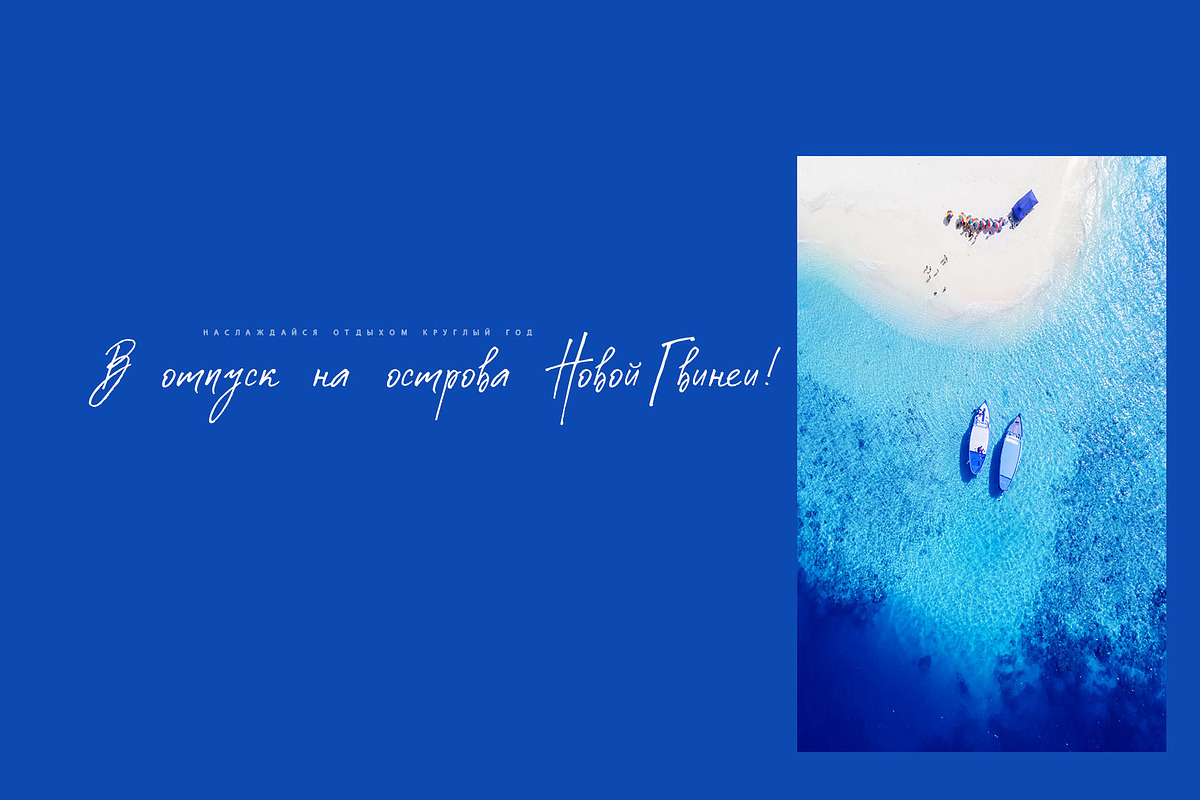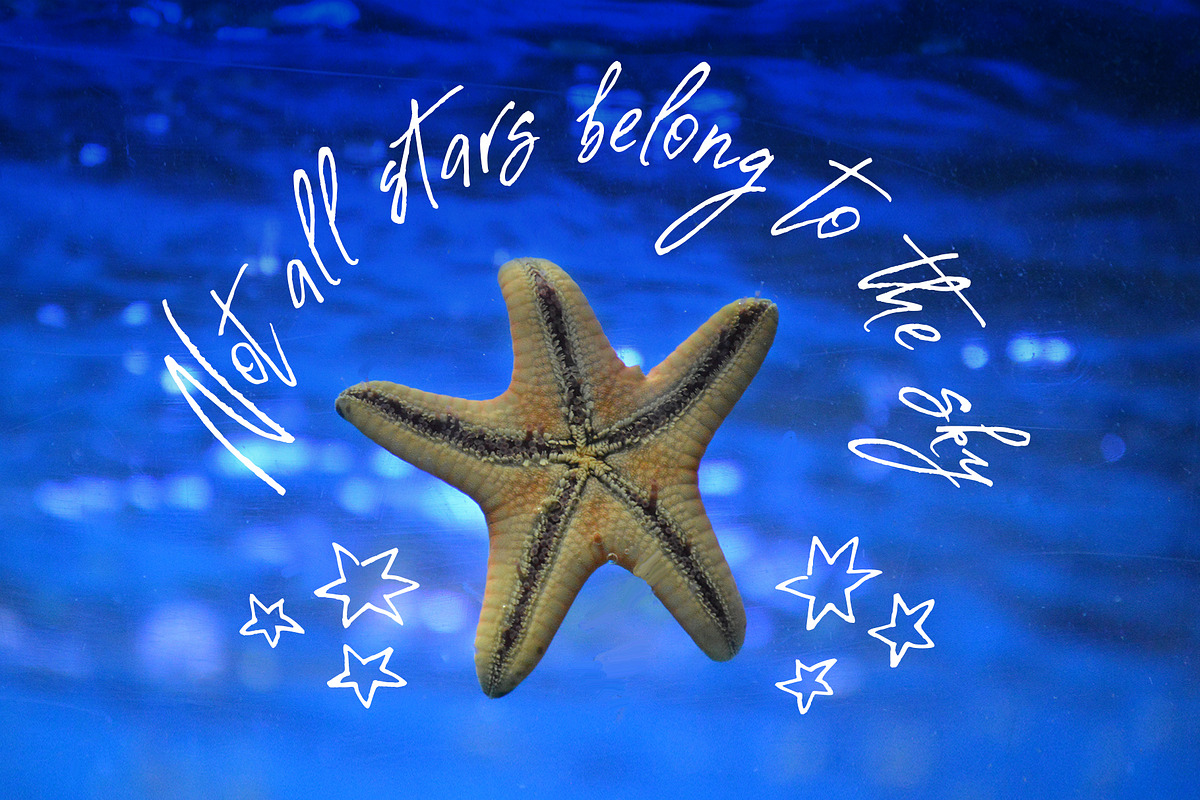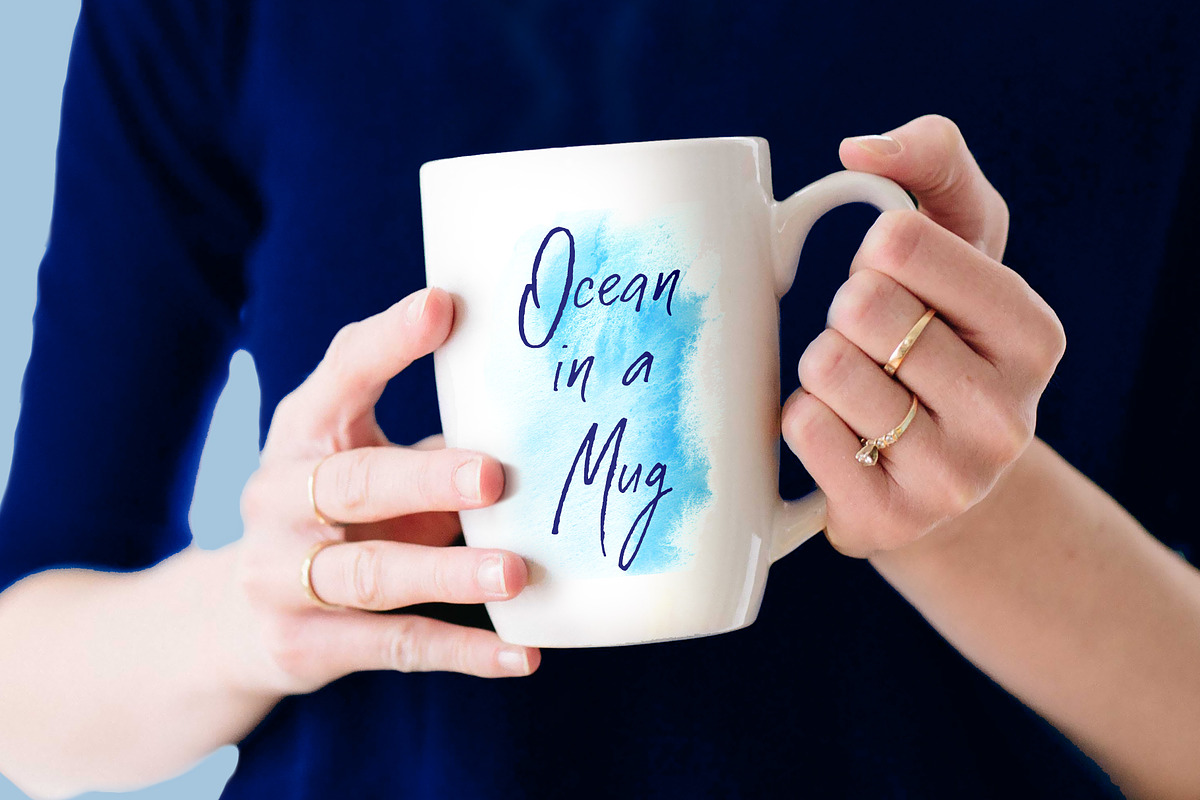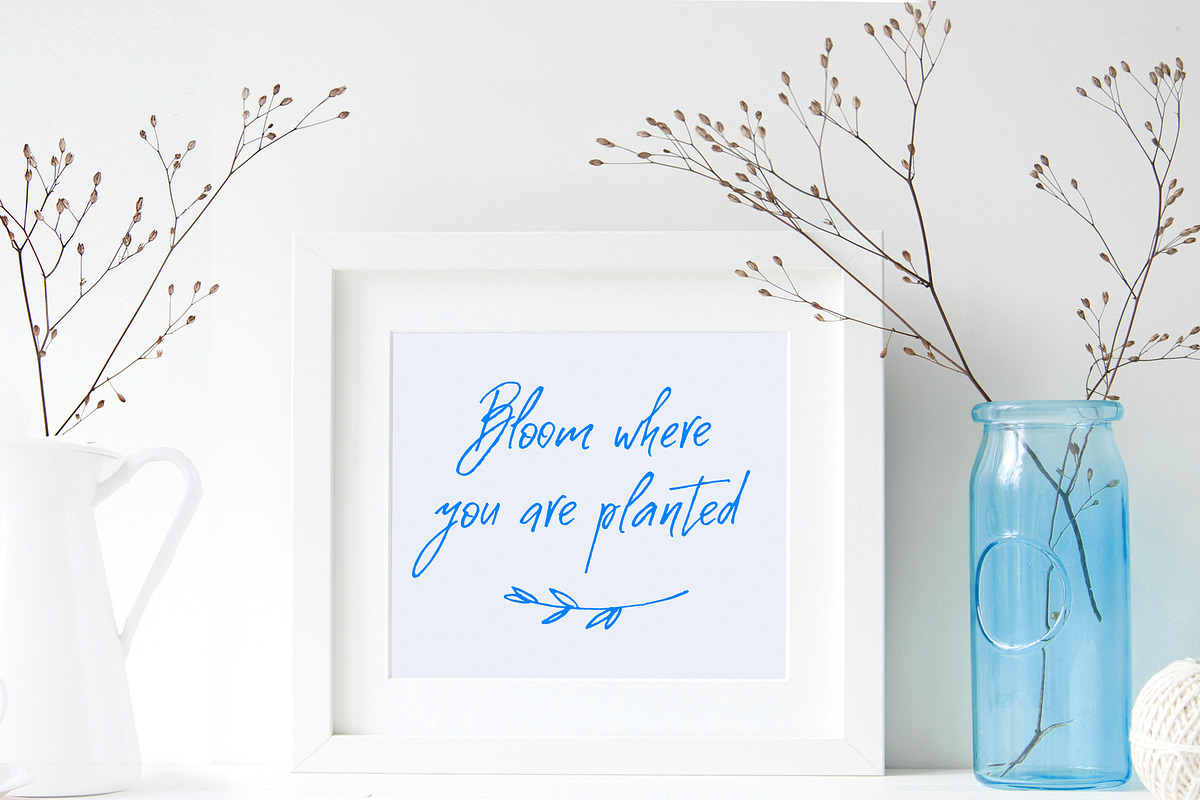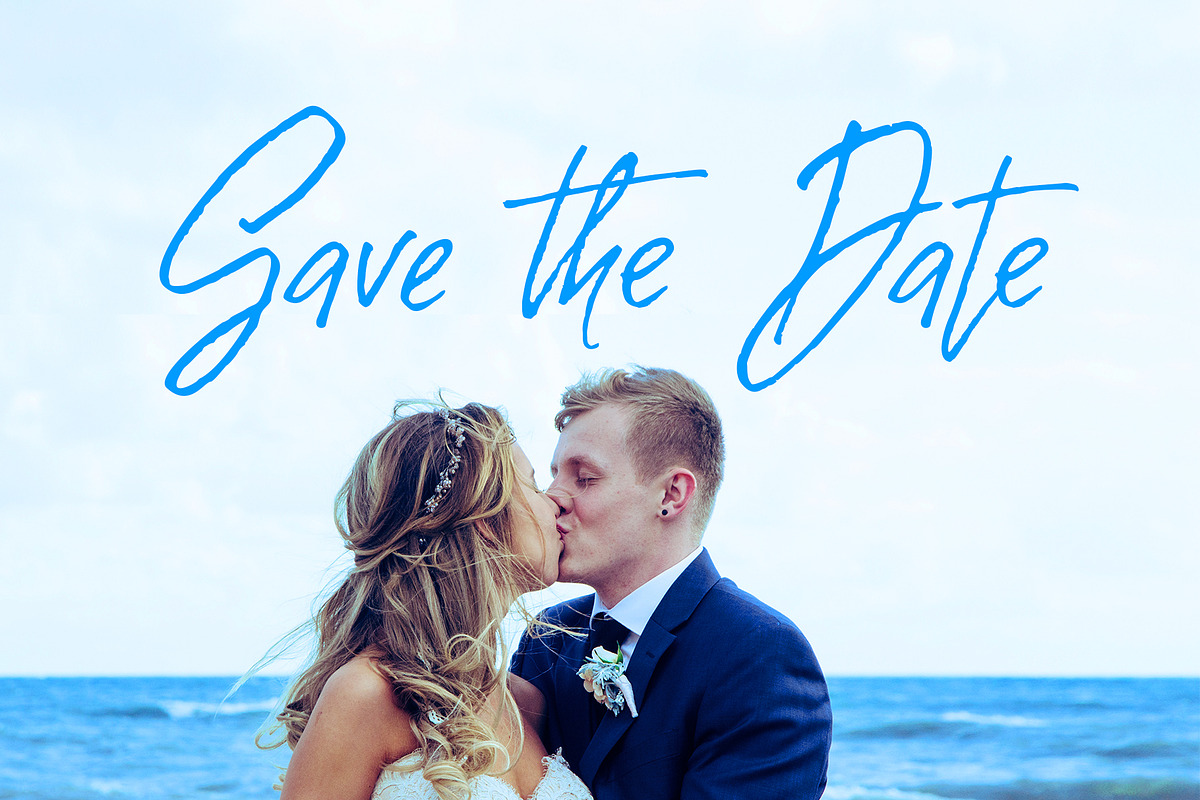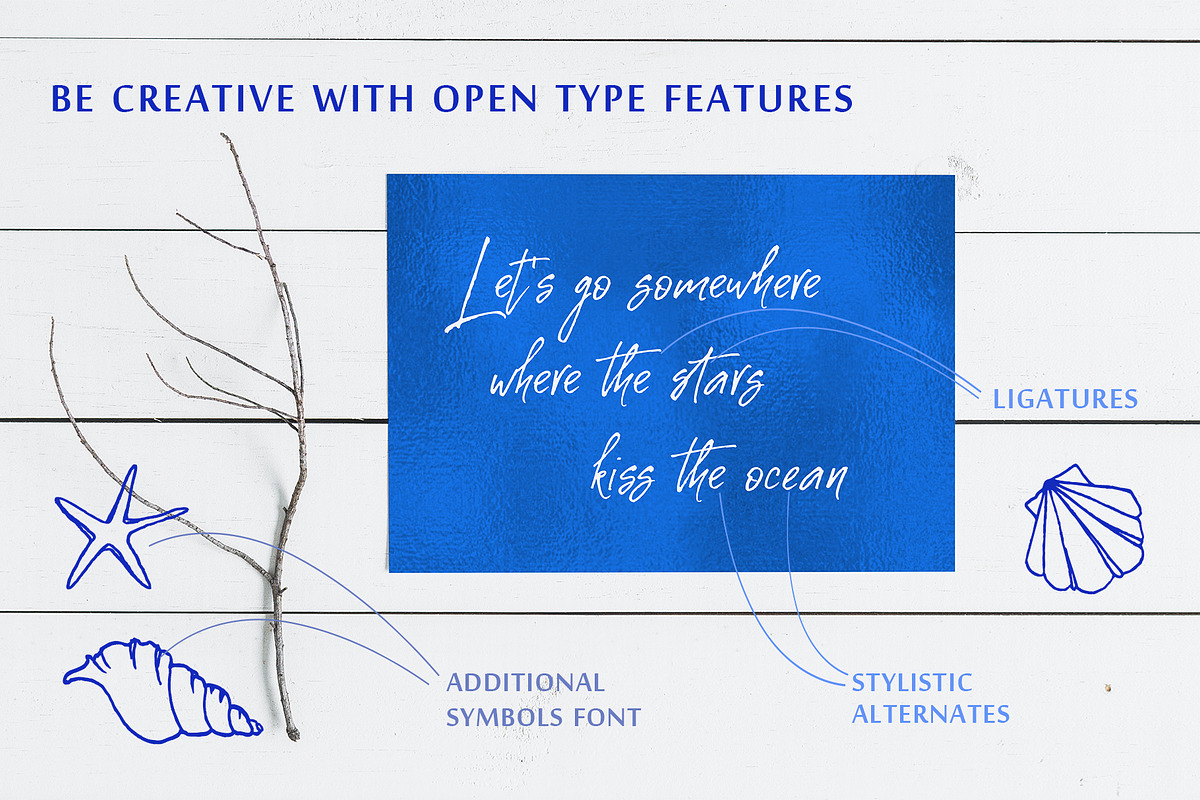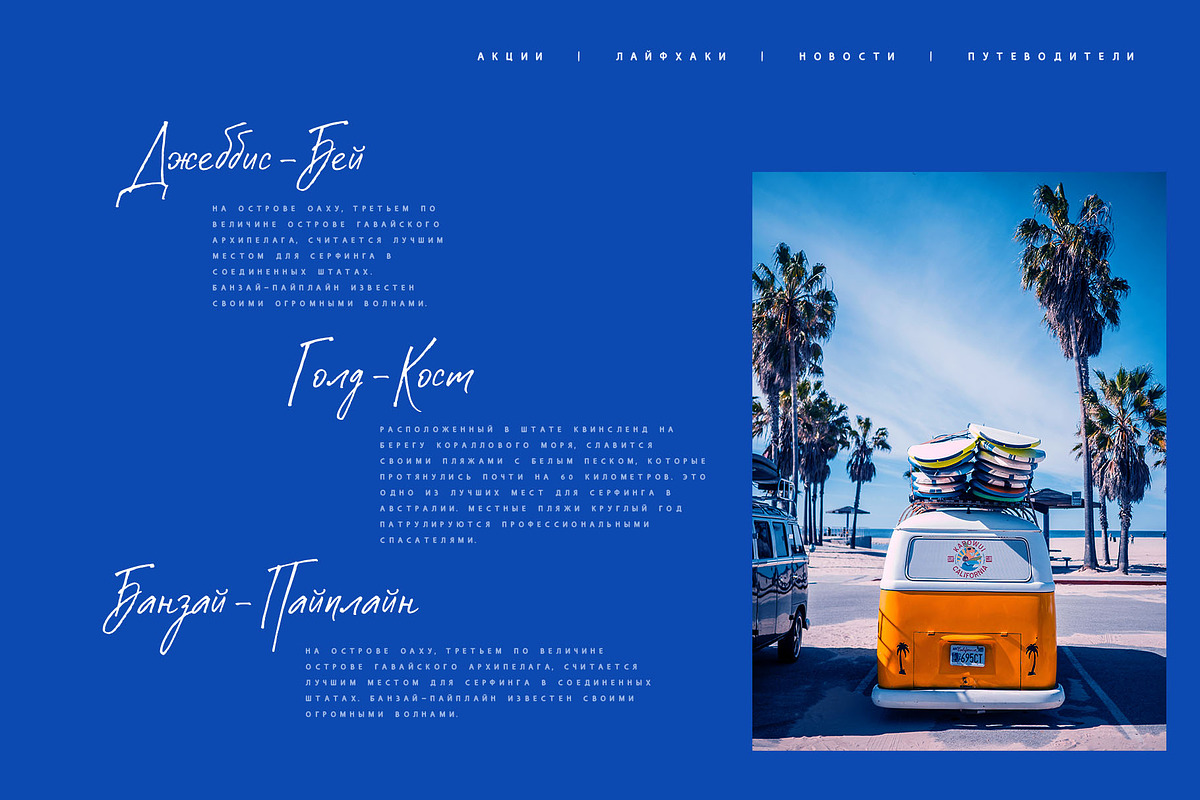
Costa Blanca Cyrillic textured font
Costa Blanca Cyrillic was handwritten with a thin cola pen and will look great on branding design, posters, apparel, logotype, website header, fashion design, wedding card design, and more.
Hand-drawn script font Costa Blanca contains a full set of uppercase letters and 2 full sets of lowercase letters and 36 ligatures - which can be used to create a handwritten calligraphy look. Use alternate lowercase and double-letter ligatures to create a perfect hand-painted look in your creations.
Additional symbols font Costa Blanca symbols contain illustrations and elements and can help to make your design more original. It is a font with over 60 unique, hand-drawn illustrations and elements. A different symbol is assigned to every uppercase and lowercase standard character plus numbers 0-9 so you do not need graphics software just simply type the letter you need.
And Cyrillic glyphs support for Russian, Belorussian, Bulgarian, Ukrainian, and Kazakh languages.
- The Cyrillic part of the font contains the uppercase letters and lowercase letters and 17 ligatures, giving a realistic hand-lettered style.